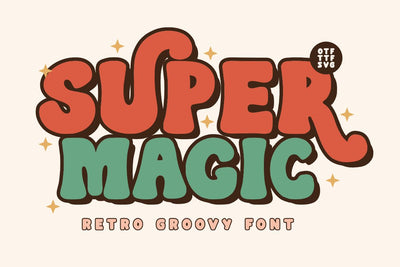
Super Magic - Retro Groovy Font
Super Magic is a groovy retro display font that will add a fun and festive touch to your Christmas designs. With its bold, rounded letters and playful curves, this font is perfect for creating eye-catching Christmas cards, party invitations, or festive social media graphics.